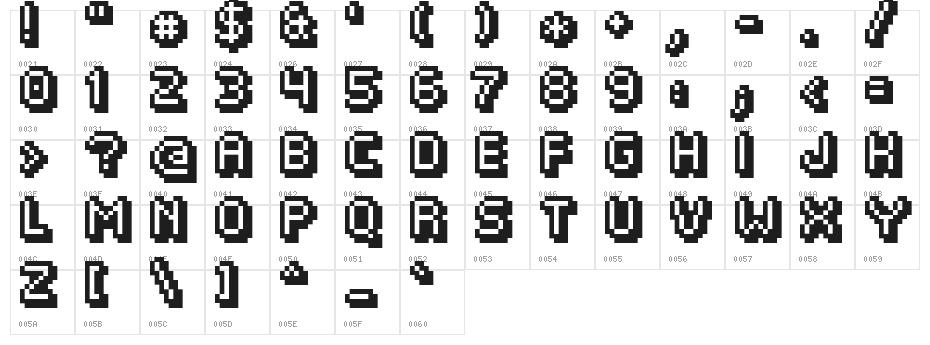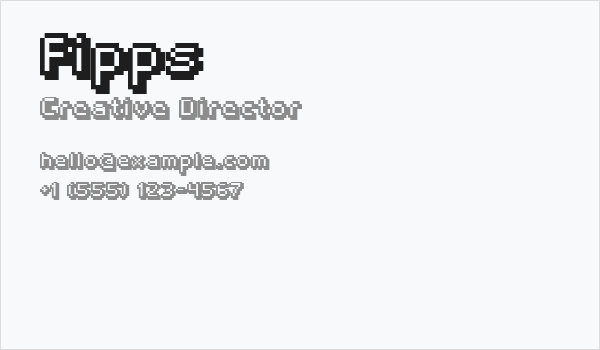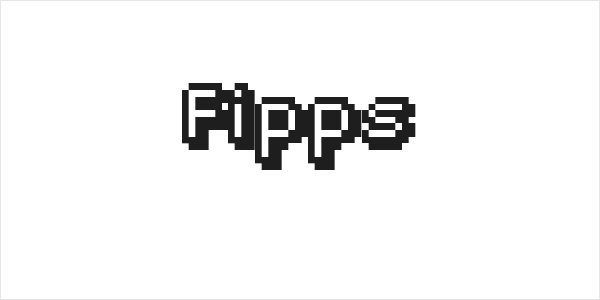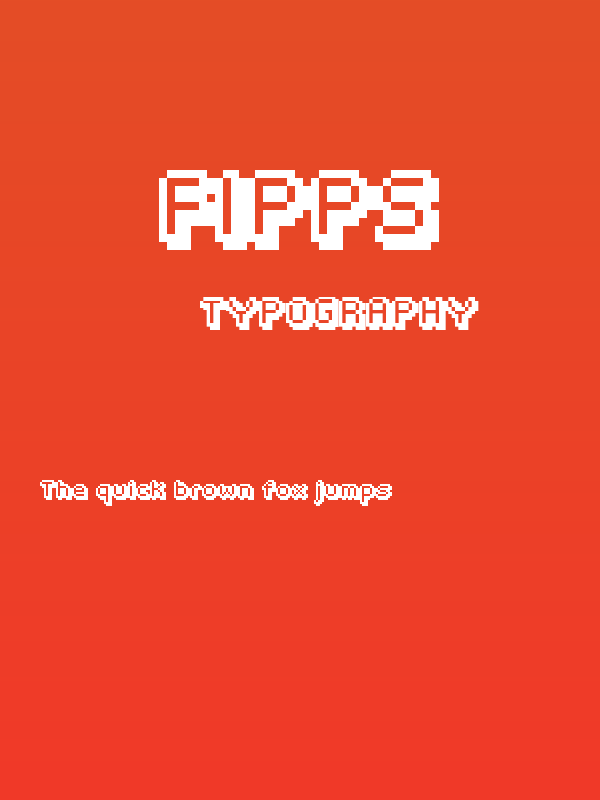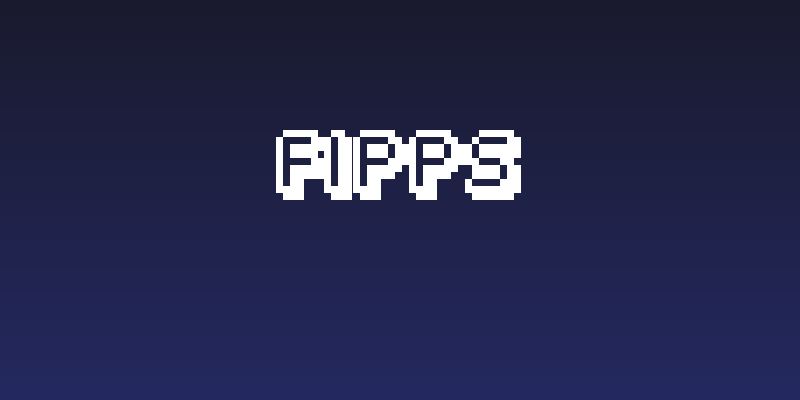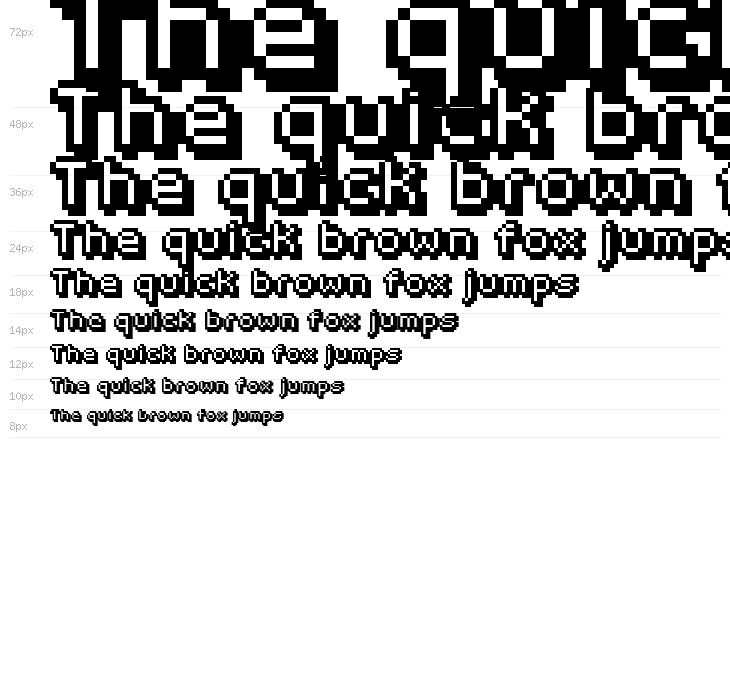
Fipps Font
Fipps Description
This font features a bold, pixelated style reminiscent of early digital and arcade game typography. Each character is constructed with a blocky, grid-like appearance, giving it a distinctly retro and digital aesthetic. The uniformity in height and width across characters contributes to a cohesive and structured look. The font's design is highly geometric, with sharp angles and straight lines dominating the character shapes. This style is particularly effective in capturing a nostalgic, vintage feel, while also offering a modern twist with its clean, minimalist execution. The characters are evenly spaced, ensuring readability while maintaining the font's unique visual appeal.
Overall StyleVintage
Proposed ProjectsIdeal for video game design, retro-themed posters, digital art projects, and any creative work requiring a nostalgic touch.